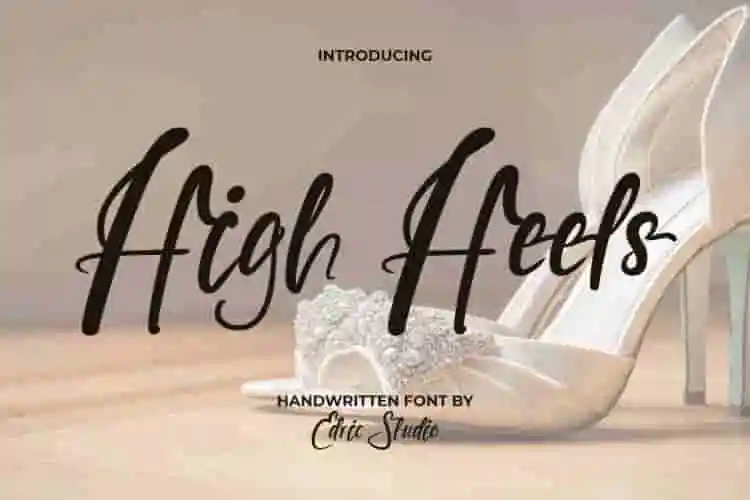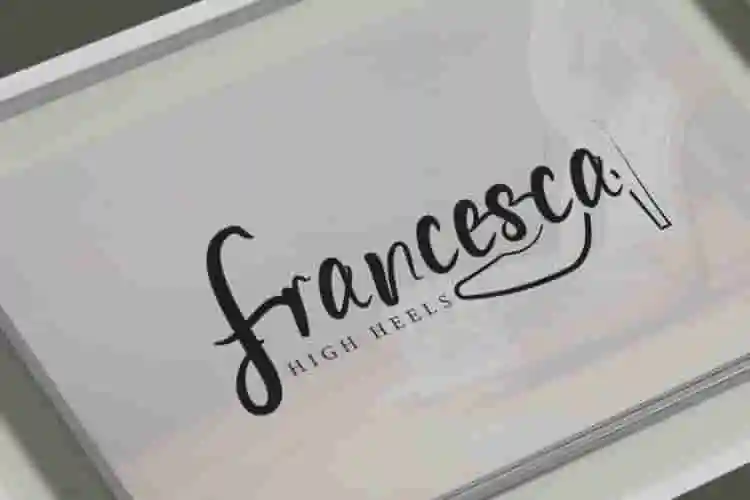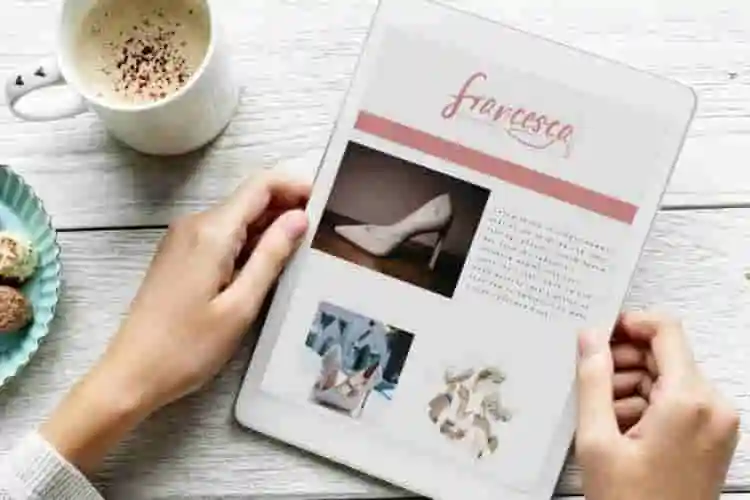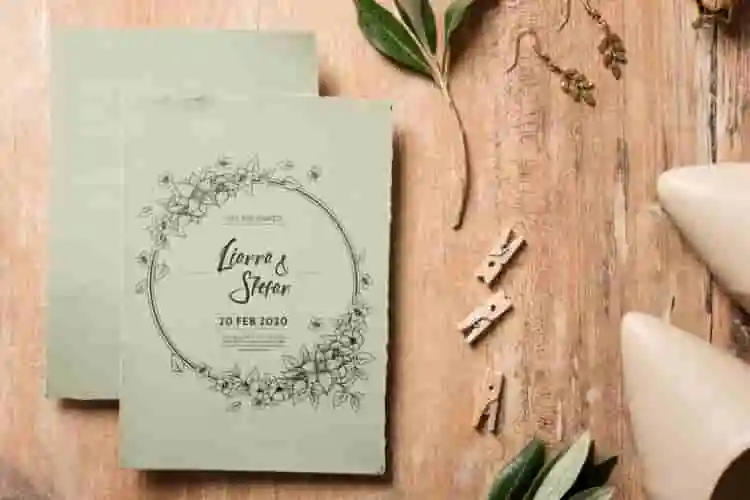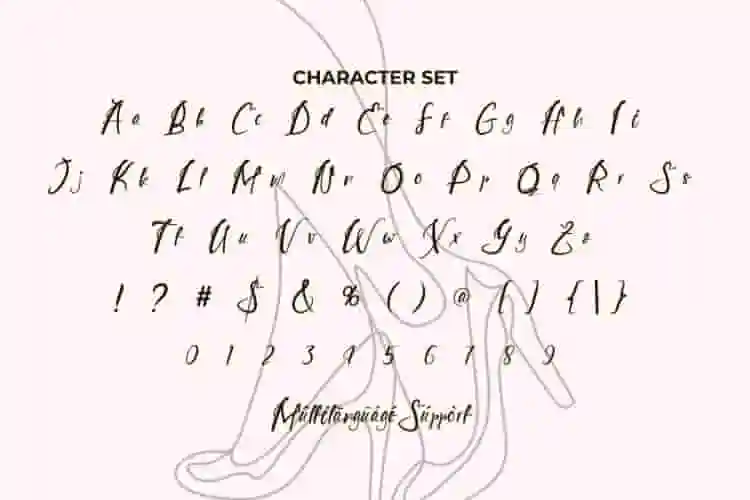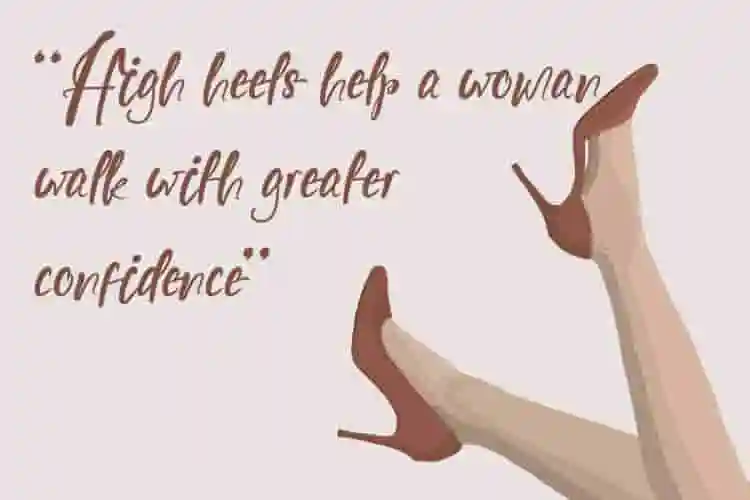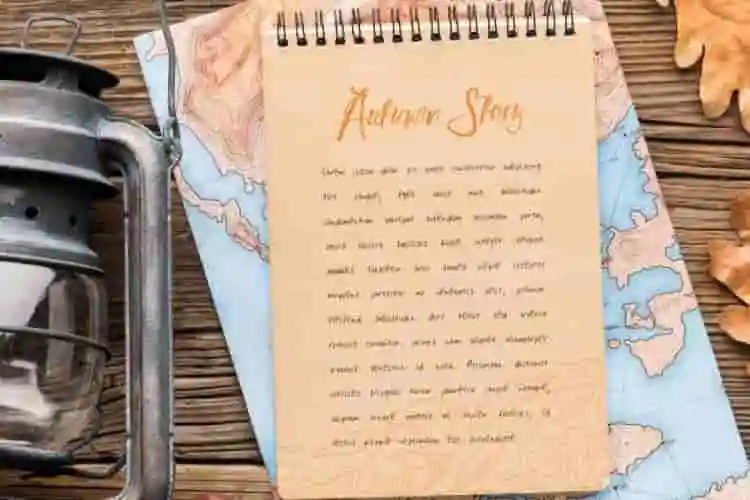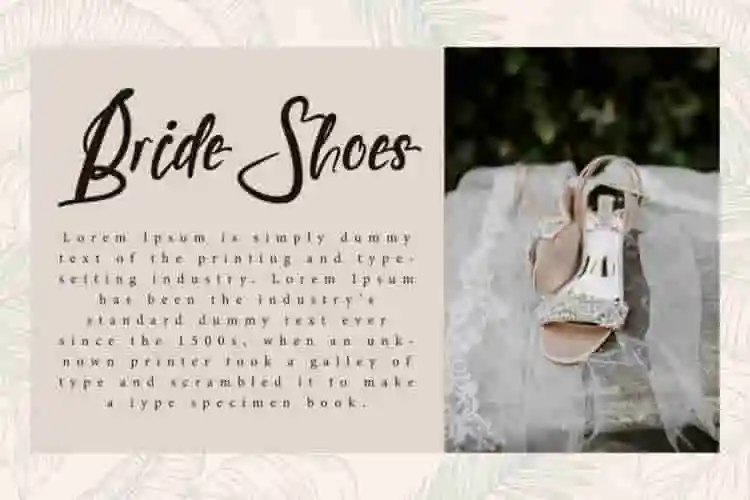
High Heels Font is a professional handwritten font dominated by bold ink, created by Edric Studio. This typography is inspired by high heels which is a feminine symbol of a woman making it the prettiest font. This will look elegant for any design, such as: app, brand logo, brochure, catalog, cover, invitation, mockup design, packaging design, quote, stationery, title, watermark, website, etc.
High Heels Font comes with a full set of Uppercase and Lowercase Basic Characters, Number, a large range of Punctuation and Symbol. It has a stunning characters set, perfectly managed with well spaced and kerning. High Heels Font will take your project to another level and is perfect for authors, bridal boutique, event organizer, fashion designer, printing, publishing, restaurant, spa salon, wedding, writers, and many more.
Introducing High Heels, a trendy and elegant handwriting font designed for creators who want to blend style, sophistication, and personality into their work. Inspired by the bold confidence of high fashion, this font brings a modern handwritten flair that’s perfect for branding, social media, logos, quotes, and more.
With smooth strokes and natural flow, High Heels gives your designs the look of effortless handwriting—confident, classy, and contemporary.
a bold and stylish handwriting font made for designers who love to express creativity with class. Inspired by high fashion and feminine energy, this font walks the line between elegance and attitude—just like your favorite pair of heels.
Elevate your design with a touch of elegance using High Heels, a graceful handwriting font that combines soft curves with confident strokes. Inspired by feminine strength and timeless fashion, this script font is perfect for creating luxury logos, wedding invitations, beauty branding, and social media content.
- Modern Handwritten Style
- Perfect for Stylish Brands